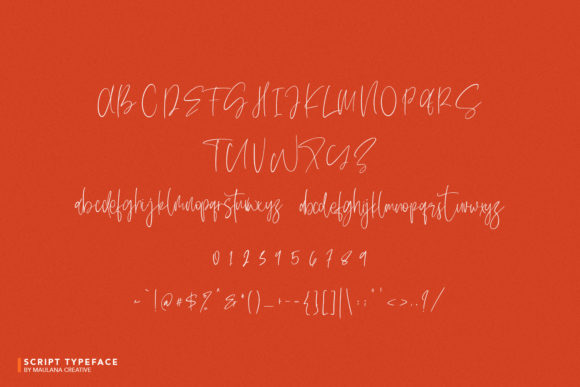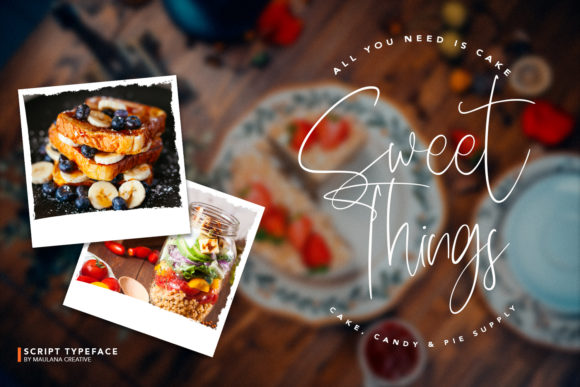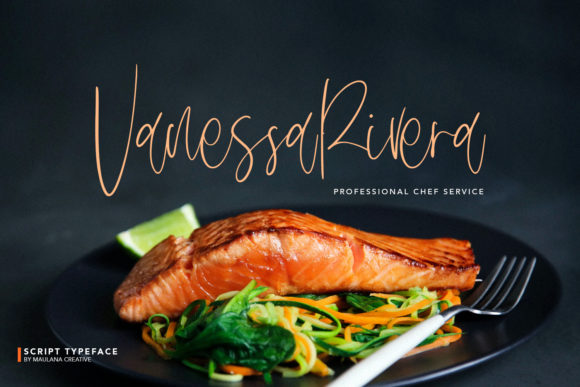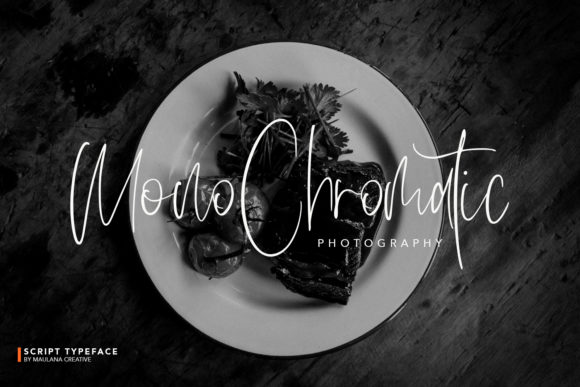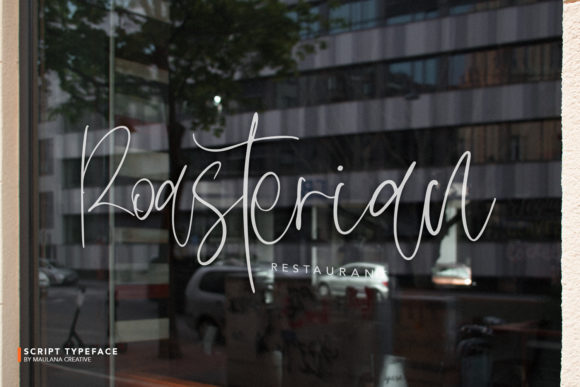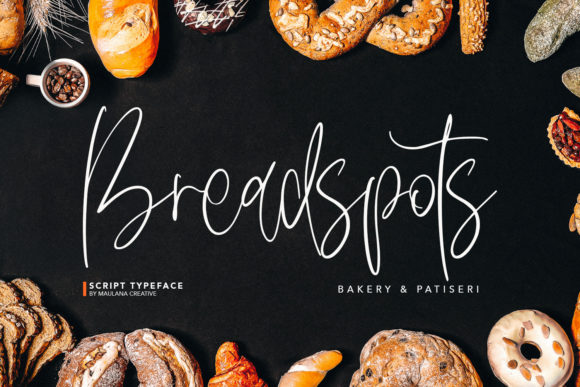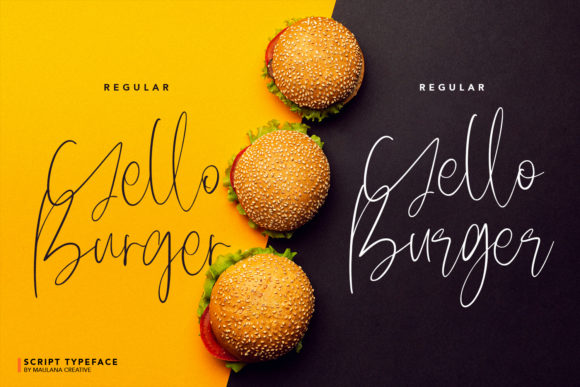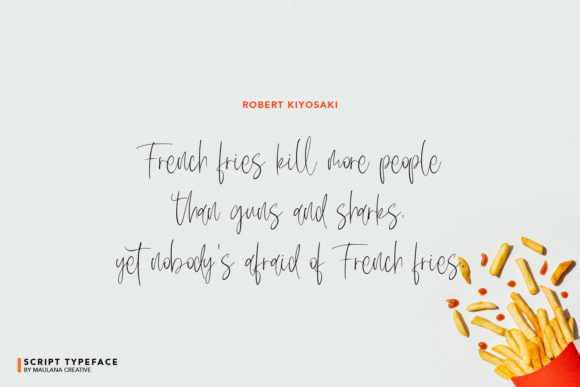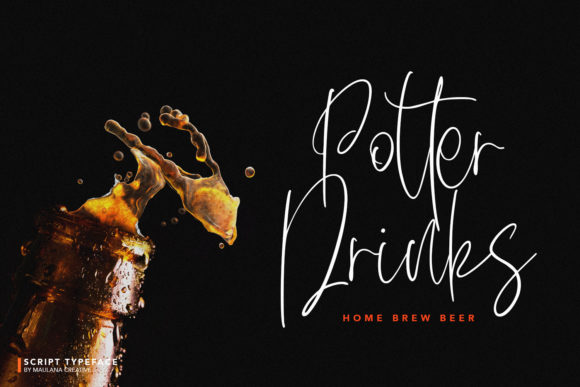
Delycious Font
About Delycious Font
Delycious feels equally relaxed and elegant. It looks stunning on wedding invitations, thank you cards, quotes, greeting cards, logos, business cards and every other design which needs a handwritten touch.